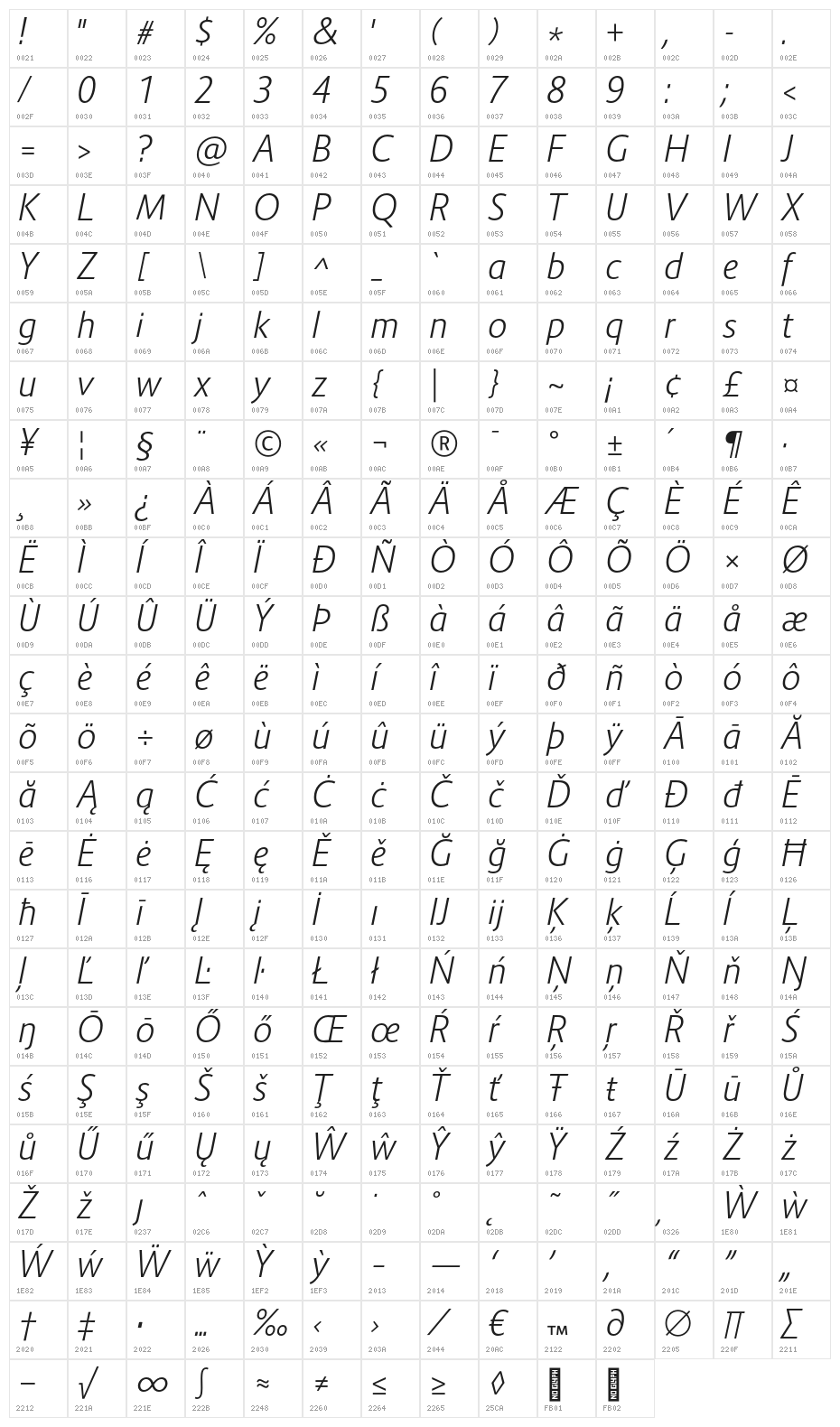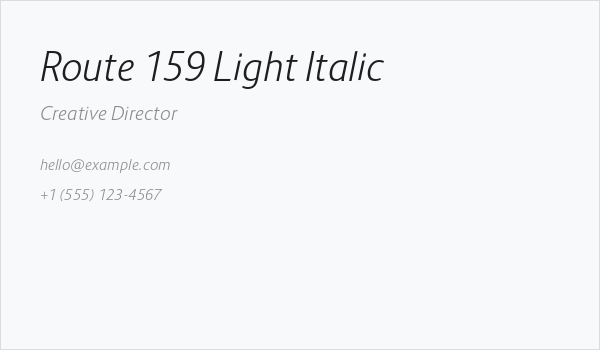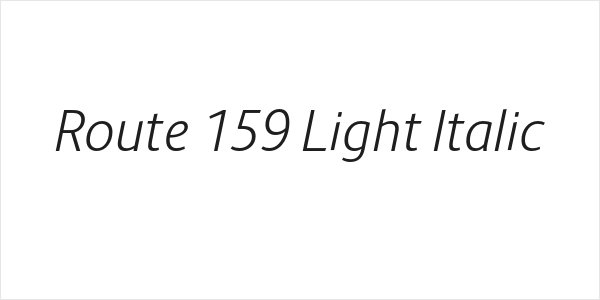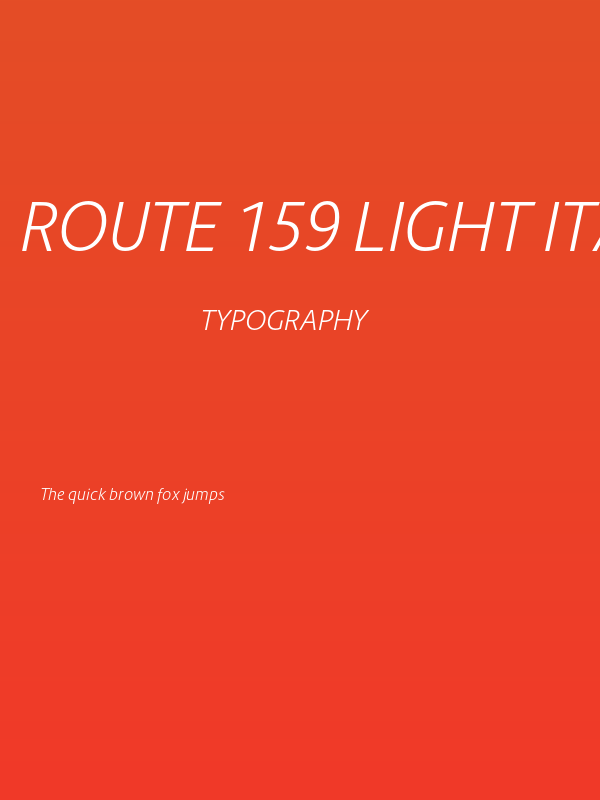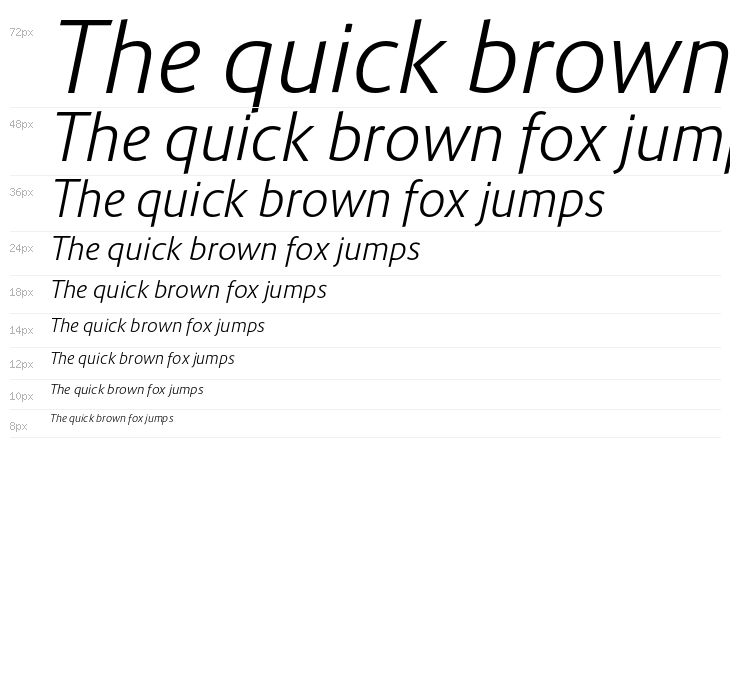
Route 159 Light Italic Font
Route 159 Light Italic Description
This font features a sleek and modern design with a light weight and italic style. The characters are slightly slanted, giving a sense of motion and elegance. The sans-serif design ensures clean lines and a contemporary feel, making it versatile for various applications. The numerals and special characters maintain the same elegant style, ensuring consistency across different uses. The overall appearance is refined and professional, suitable for both digital and print media.
| Proposed Projects | Ideal for branding, editorial design, digital interfaces, and modern advertising campaigns. |